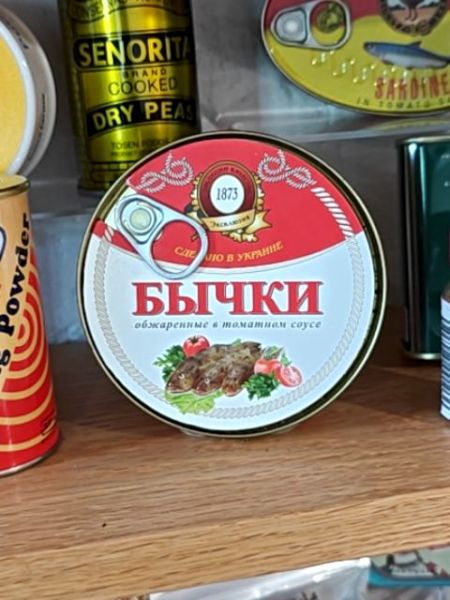
Бычки
This is a canned fish product, specifically fried fish in tomato sauce.
1873
Ukraine
The typography uses bold Cyrillic letters prominently in red, creating a strong visual focus. The font style is traditional, complementing the product’s heritage and authenticity. Additional text is in a smaller, simpler font, likely to convey supplementary information without detracting from the main product name.
The packaging is a round tin can with a pull-tab, featuring a red and white color scheme. It includes a central image of the fish product served with herbs and a printed golden emblem at the top.
- The product is made in Ukraine.
- It features an image of the fish on the label.
- The label includes decorative elements that suggest a traditional or classic design.